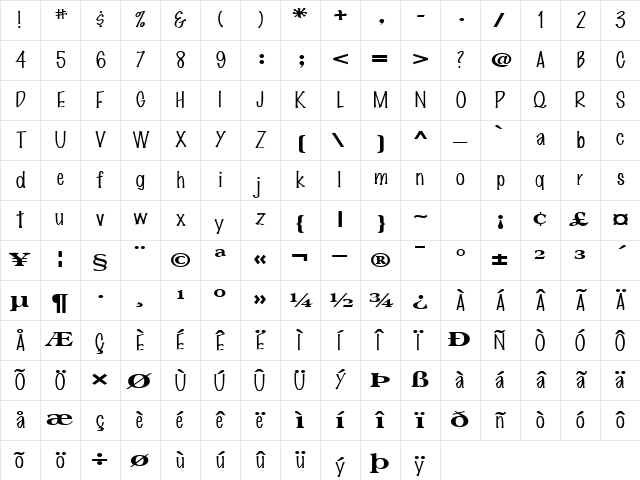
PrestoDone38 Regular
Design Context for PrestoDone38
PrestoDone38 is a composed and adaptable typeface that performs quietly and consistently across a wide range of design contexts.
Pro Tip: Use PrestoDone38 in both headline and body roles to test its range before committing to a single application.